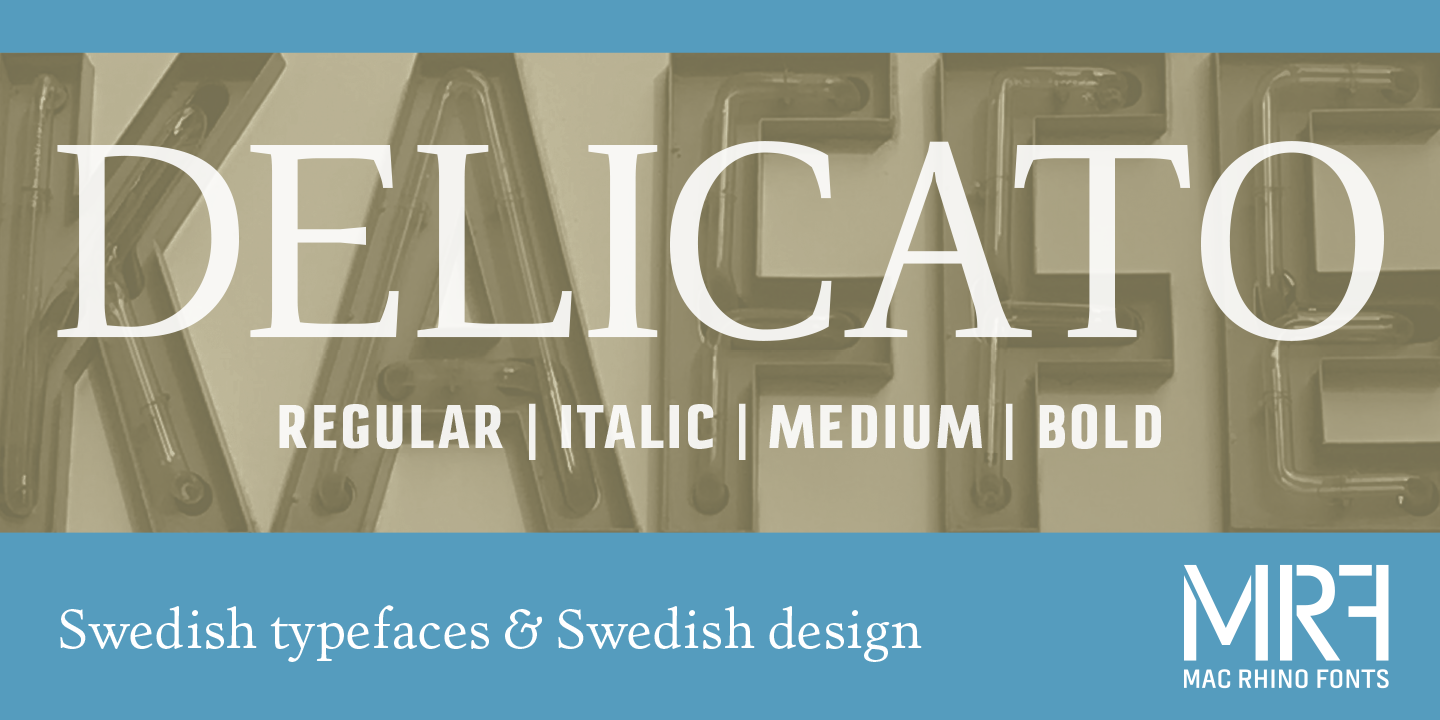
This elegant and refined typeface is ideally suited for a myriad of sophisticated applications, including luxurious branding, high-end editorial designs, exquisite wedding invitations, fine dining menus, artistic packaging, and any project that demands a touch of class and distinction. Its graceful appearance ensures your message is delivered with unparalleled style.
What makes the Delicato Pro Font so exciting? It embodies an unparalleled blend of classic elegance and modern versatility. Its beautifully crafted curves and precise letterforms exude a sense of refined artistry, making every word a visual delight. This isn't just a font; it's a statement of sophistication. It has the power to transform ordinary text into a captivating visual experience, drawing the viewer in with its subtle charm and impeccable balance. Whether you're aiming for a timeless appeal or a contemporary chic look, Delicato Pro provides the perfect foundation for designs that truly resonate.
The Delicato Pro Font comes with an extensive and meticulously designed family to provide you with ultimate creative freedom. This typically includes a wide range of weights such as thin, light, regular, medium, bold, and black, offering incredible versatility for various design needs. You'll also find beautifully rendered italic versions for each weight, along with potential stylistic alternatives and ligatures that enhance its already stunning aesthetic. Some families might even feature condensed or expanded variations, allowing for perfect typographic harmony across different layouts and mediums.